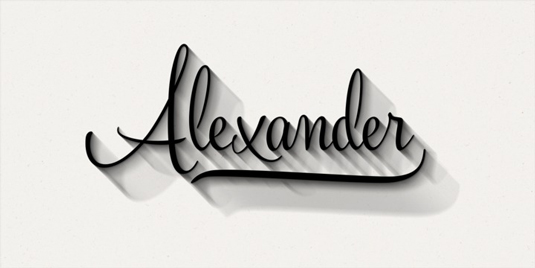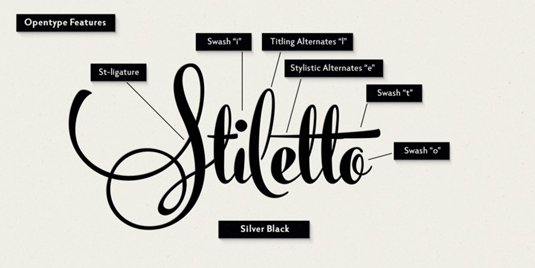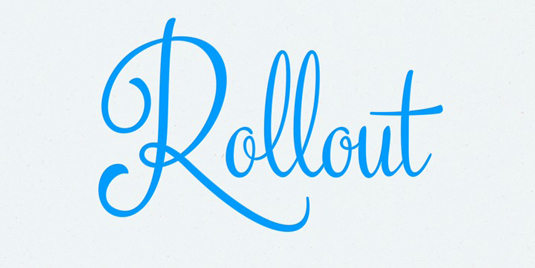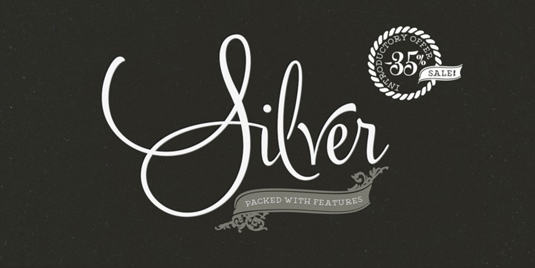
Font of the day: Silver
Every day we showcase the best fonts on the web. Today it's Silver by Emil Karl Bertell.
Silver by Emil Karl Bertell
A clean and elegant connected script font, Silver was created by Finnish type designer and illustrator Emil Karl Bertell. Available from MyFonts, the design is described as being 'best used on creating elegant headlines, logos and posters for packaging and branding purposes'.